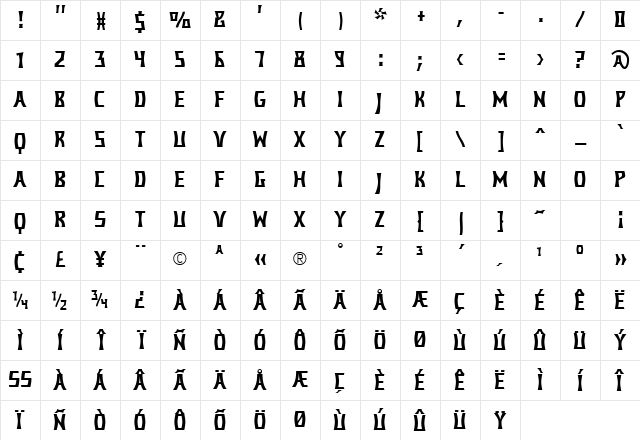
ConcavexCaps Regular Free Font
ConcavexCaps Regular
Design Context for ConcavexCaps
ConcavexCaps is a composed and adaptable typeface that performs quietly and consistently across a wide range of design contexts.
Pro Tip: Use ConcavexCaps in both headline and body roles to test its range before committing to a single application.